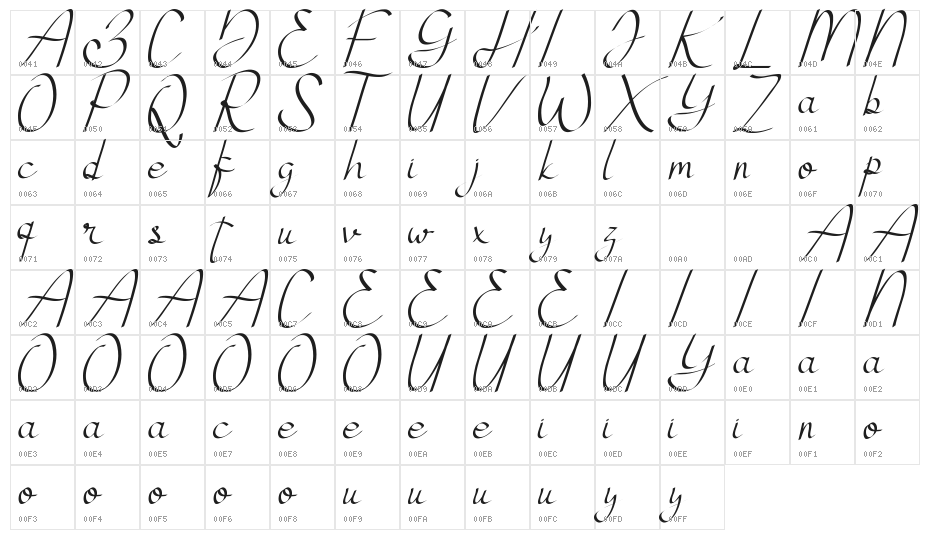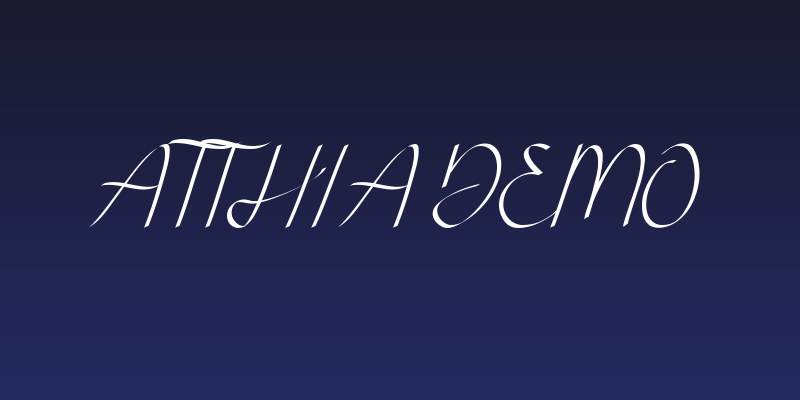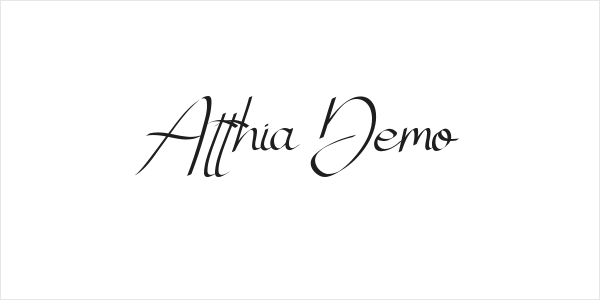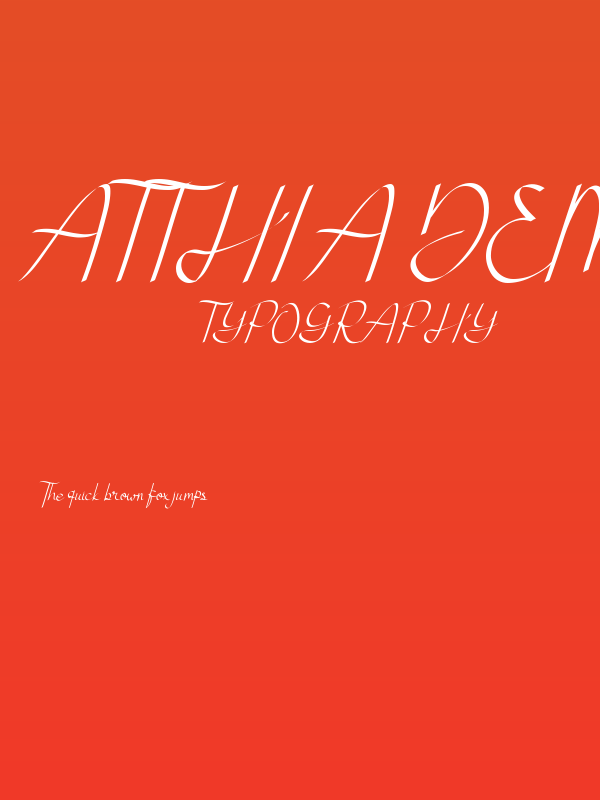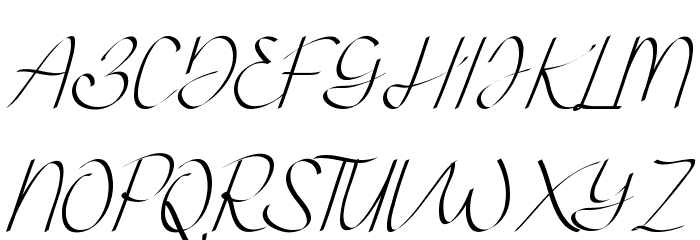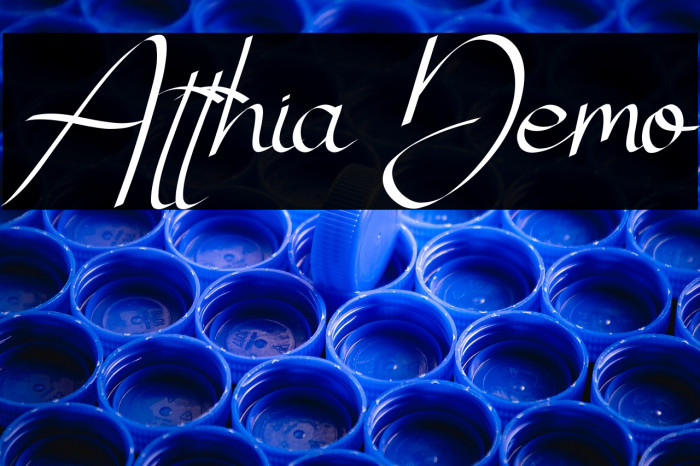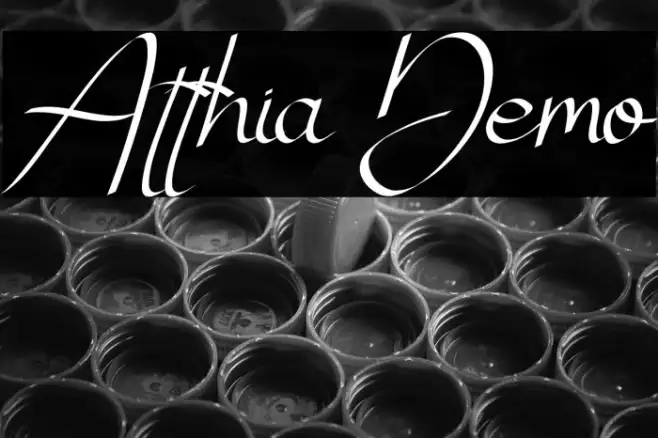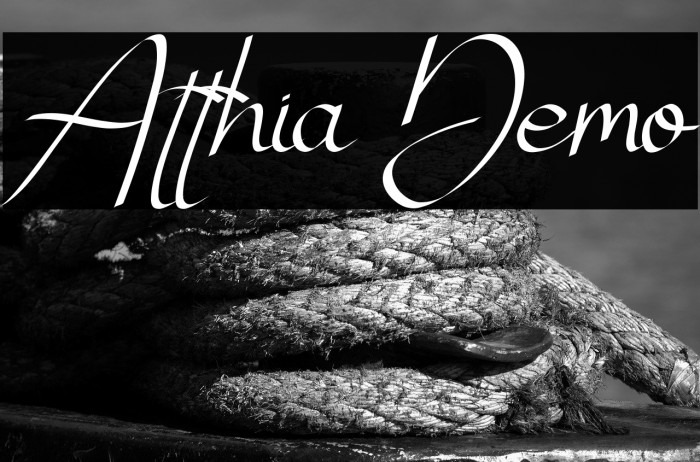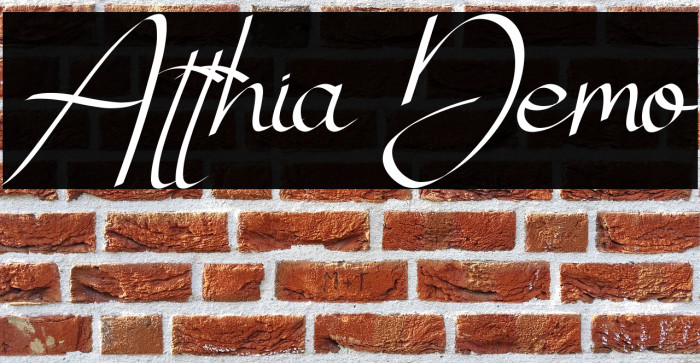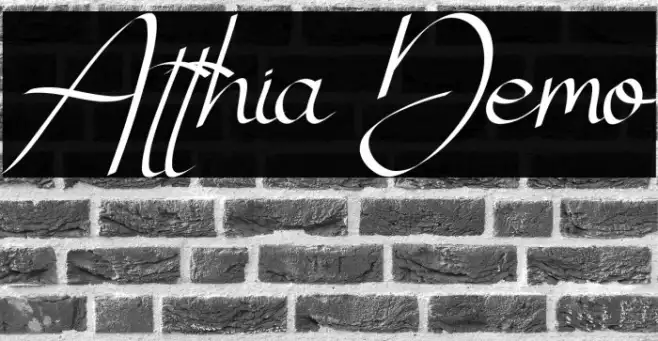
Atthia Demo Font
Atthia Demo Description
This elegant script font features a flowing, cursive style with a modern twist. The characters are interconnected with smooth, sweeping lines that give a sense of fluidity and grace. The uppercase letters are slightly more structured, providing a nice contrast to the more freeform lowercase letters. This font has a high contrast in stroke thickness, with thin lines elegantly transitioning into thicker strokes, adding to its sophisticated appearance. The overall style is both decorative and modern, making it suitable for a variety of creative projects.